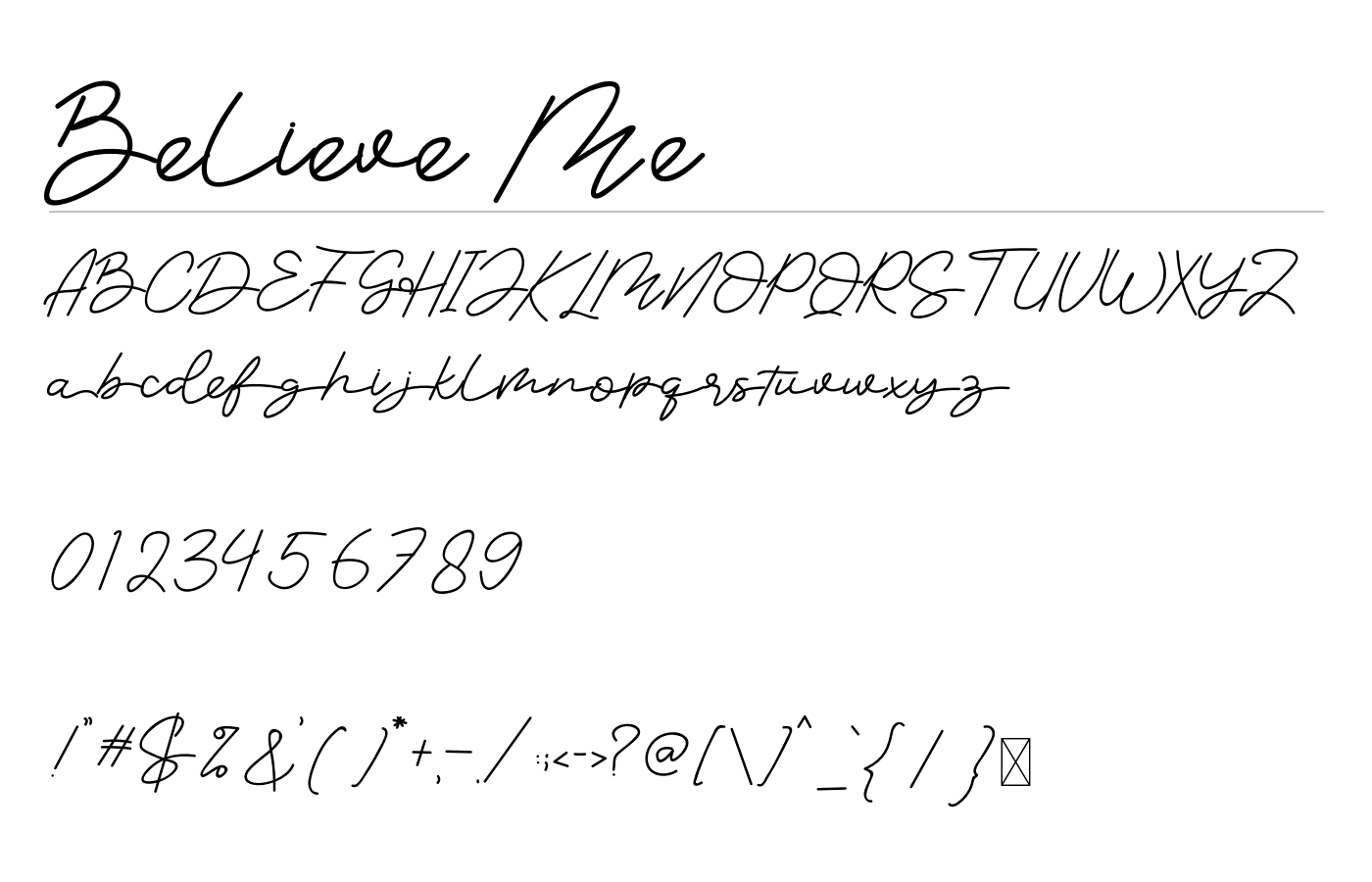
Believe Me is a delicate and elegant handwritten script font characterized by its thin, flowing strokes and natural, casual feel. Its refined, airy letterforms convey a personal and approachable vibe, making it ideal for creative projects like invitations, branding, and editorial designs that seek a touch of sophistication and warmth. This font works best in contexts where a friendly yet chic handwritten style is desired, adding a unique, heartfelt impression to any design.
Believe Me Font